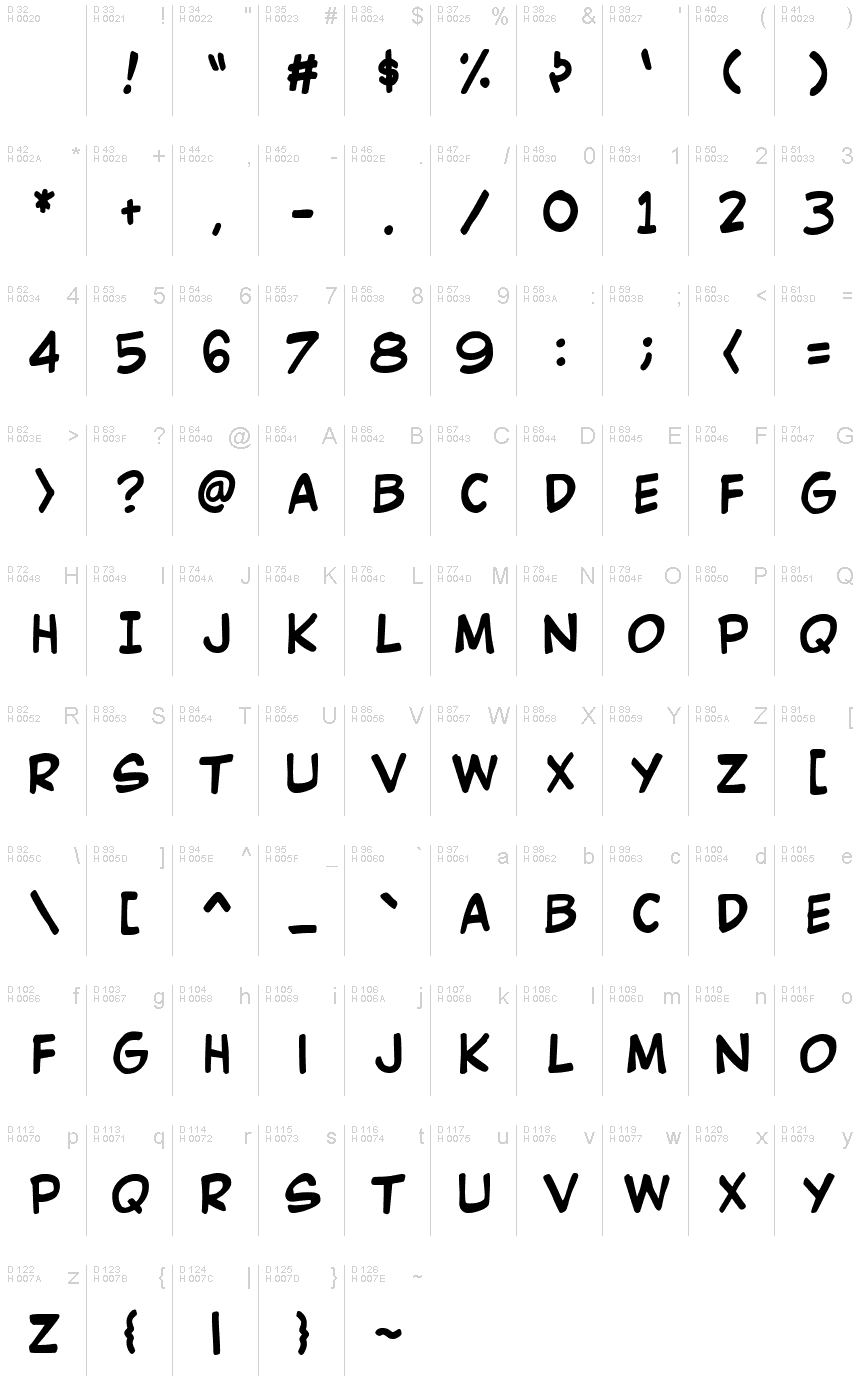
Kk Dimple Regular
Kk Dimple, designed by Jezael Manahan, is a fun and playful display font that will add a touch of whimsy to any project. With its comic style, Kk Dimple is perfect for children's books, invitations, greeting cards, and posters. The semi-bold font weight provides great readability while the narrow width allows for longer lines of text. Whether you're designing for print or web, Kk Dimple is sure to grab your audience's attention. Use it for branding projects or as a headline font on your website. This versatile typeface will bring a smile to anyone's face!